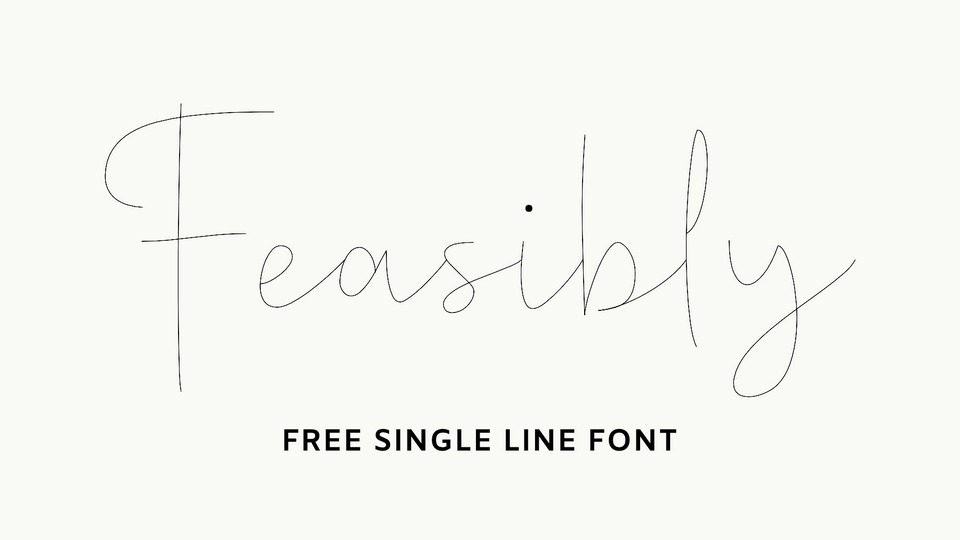
Download Feasibly font, a sweet single line handwritten typeface that is made with great care in order to produce the expected outcomes. Feasibly font will look extraordinary in a variety of contexts.